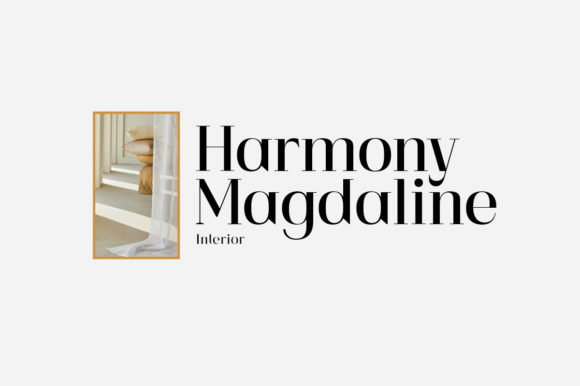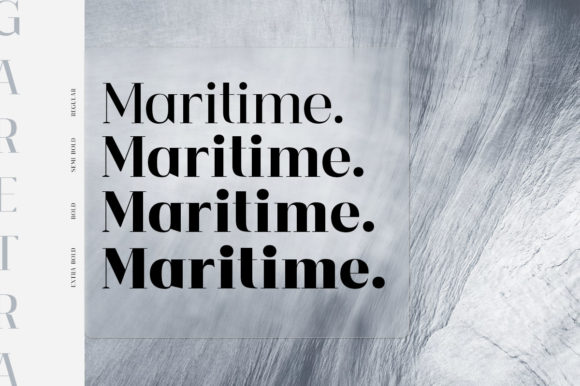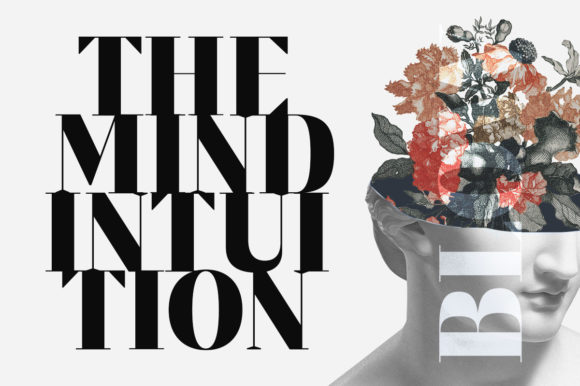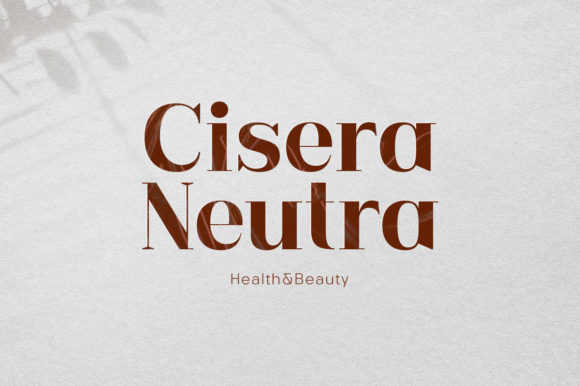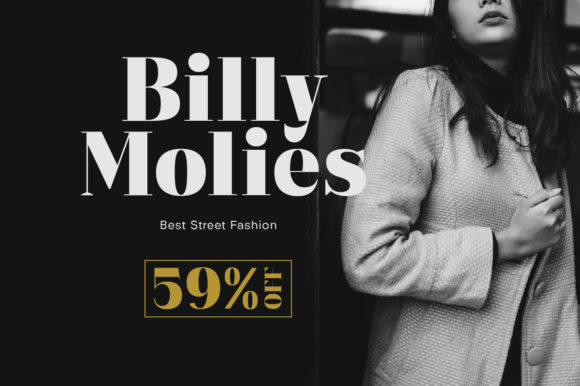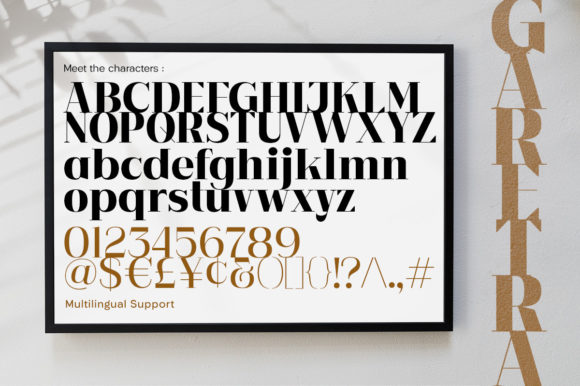
There’s nothing quite like the rush of excitement that comes with starting a new design project. You’re filled with ideas, and the possibilities seem endless. But then, you hit a roadblock – the perfect font to bring your vision to life. This is where the Garetra – Serif Family Font comes in, a sophisticated serif font with a multitude of weights to choose from.
With its four weight styles, you can tailor the Garetra – Serif Family Font to match your project’s unique tone and style. Whether you’re looking to make a statement with a headline or add a touch of elegance to a tagline, this font is sure to deliver. As a designer, you know how valuable a versatile font like this can be, allowing you to take your projects to the next level.
Garetra – Serif Family Font Key Features
- Font Family: Garetra is a serif font family designed for use in various applications, including books, magazines, and websites.
- Size and Resolution: Garetra comes in various font sizes, ranging from 8pt to 72pt, with a resolution of 300 DPI (dots per inch) for high-quality printing.
- Unique Characteristics: This serif font features a classic, elegant design with subtle flair and gentle curves, making it suitable for formal and sophisticated typography.
- Language Support: Garetra supports a wide range of languages, including English, Spanish, French, German, Italian, and many others, with Unicode coverage for over 100 languages.
- Font Styles: The font family includes various styles, such as Regular, Italic, Bold, and Bold Italic, providing flexibility for different typographic applications.
Garetra – Serif Family Font Review
I recently had the chance to work with Garetra – a serif family font, and I must say it has both its strengths and weaknesses.
- The font has a unique, elegant feel to it. It’s perfect for creating a sophisticated and professional look.
- The font family includes a wide range of weights, from light to bold, making it easy to find the perfect match for your project.
- The font is highly legible, even at smaller font sizes, making it a great choice for body text.
- The font may not be the best choice for modern or tech-related projects, as it has a more traditional feel.
- The font family is not as extensive as some other serif fonts on the market, which may limit its versatility.
- The font may not be as well-suited for titles or headings, as it can be a bit too elegant and may get lost in the design.
Garetra is a solid choice for designers looking to create a professional and elegant look. While it may not be the best fit for every project, it’s definitely worth considering for more traditional or corporate designs. With its unique feel and wide range of weights, it’s a great addition to any designer’s toolkit.
Tips for Getting the Most Out of Garetra
Use Garetra to create elegant and sophisticated designs, perfect for:
- Formal invitations and event materials.
- Business reports and presentations.
- Academic papers and theses.
Experiment with different font sizes and styles to achieve the desired effect.
Alternatives to Garetra – Serif Family Font
Playfair Display is an elegant and luxurious serif font, perfect for creating a sophisticated and high-end look. It’s ideal for use in advertising, luxury branding, and editorial design. This font is more ornate and luxurious compared to Garetra, making it a better choice for high-end designs.
Merriweather is a classic serif font that’s highly legible and versatile. It’s suitable for a wide range of applications, including body text, headings, and titles. Compared to Garetra, Merriweather is more straightforward and doesn’t have the same level of ornamentation, making it a better choice for designs that require a clean and simple look.
Georgia is a serif font that’s designed specifically for digital use. It’s highly legible and clear, making it an excellent choice for body text and long-form content. Compared to Garetra, Georgia is more modern and doesn’t have the same level of historical flair, making it a better choice for designs that require a clean and contemporary look.